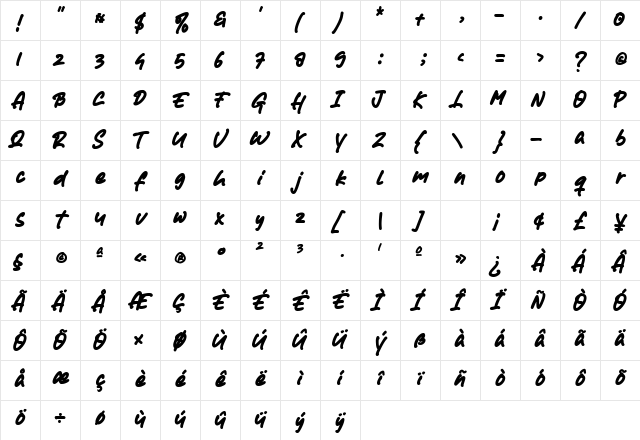
Babies Shower Regular
Designer: Muh Aswar By Azetype Studio
Design Context for Babies Shower
Babies Shower is a composed and adaptable typeface that performs quietly and consistently across a wide range of design contexts.